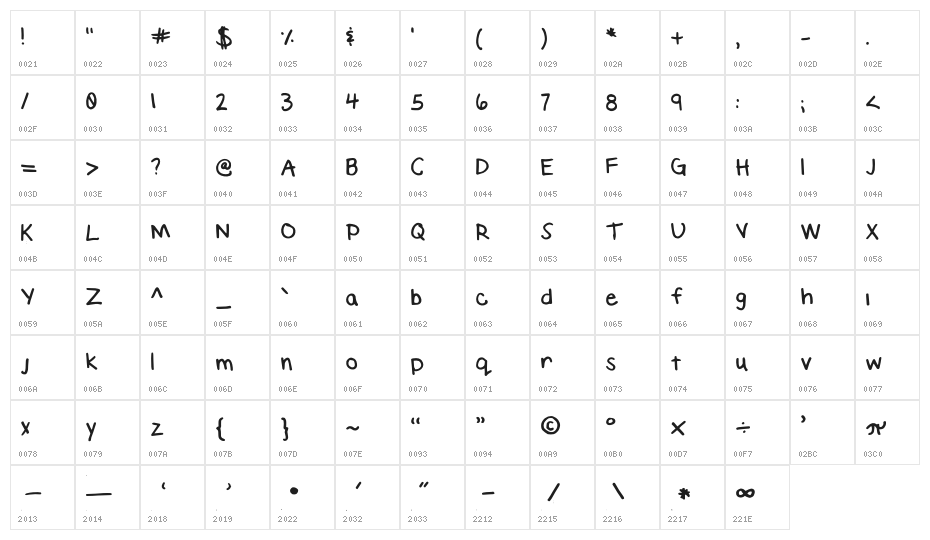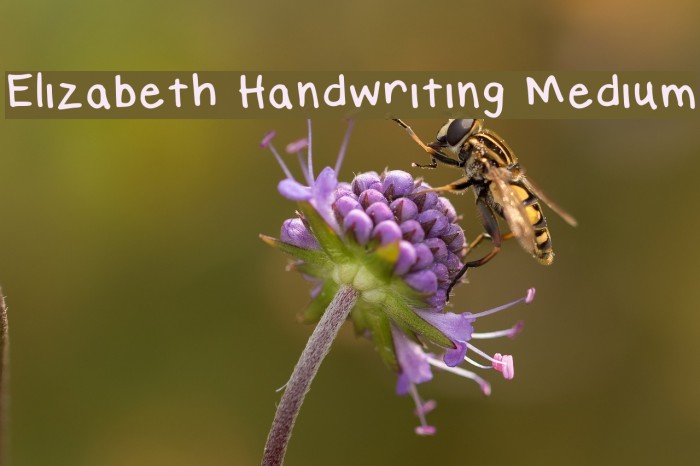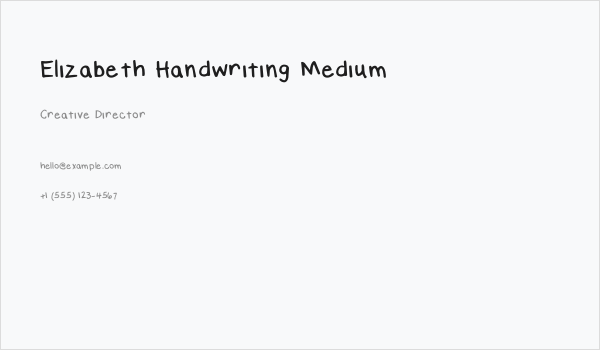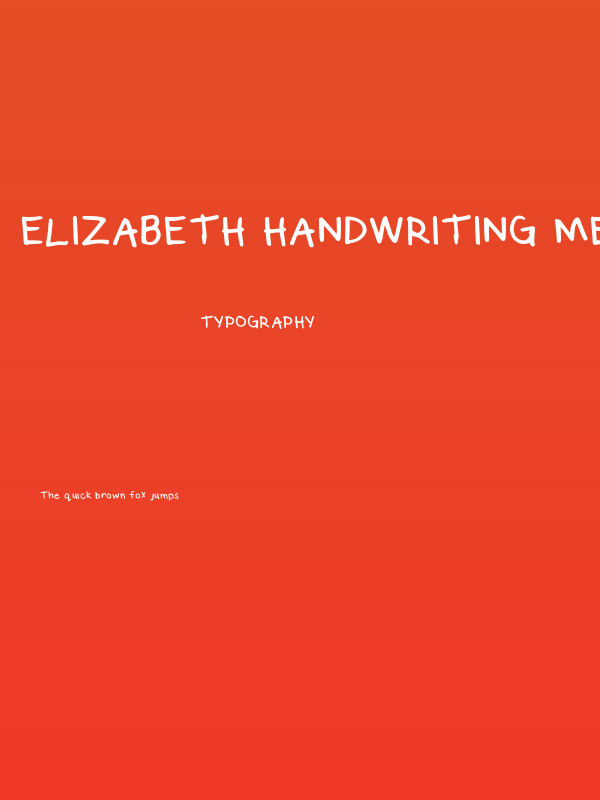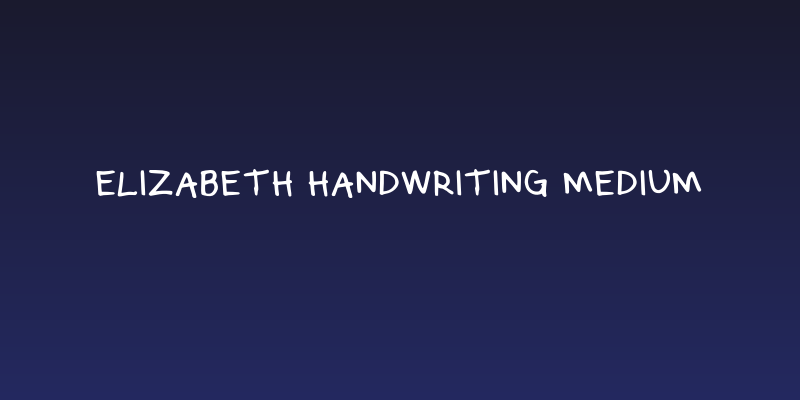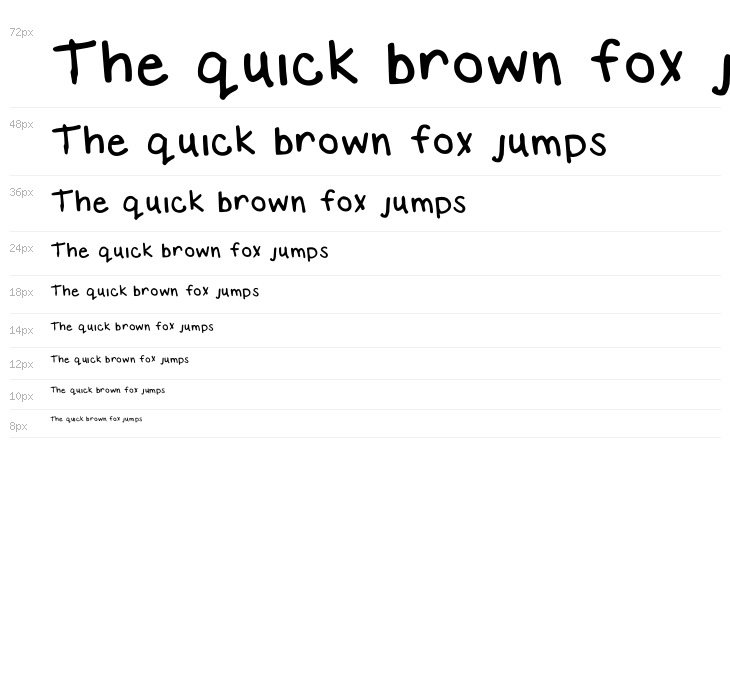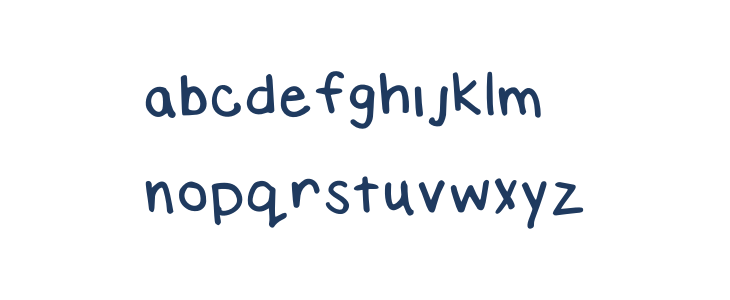
Elizabeth Handwriting Medium Font
Elizabeth Handwriting Medium Description
This font exudes a casual and friendly handwritten style, characterized by its smooth, rounded strokes and slightly irregular letterforms that mimic natural handwriting. The uppercase and lowercase letters maintain a consistent flow, with a playful yet legible appearance. The numerals and special characters are crafted with the same informal charm, making them easily recognizable while maintaining the overall aesthetic. The font's medium weight provides a balanced presence, ensuring readability without overwhelming the design. Its organic, personal touch makes it suitable for projects that require a human element.
| Use Case | Headlines, Invitations, Social Media |
| Proposed Projects | Ideal for personal invitations, greeting cards, casual branding, and social media graphics. |